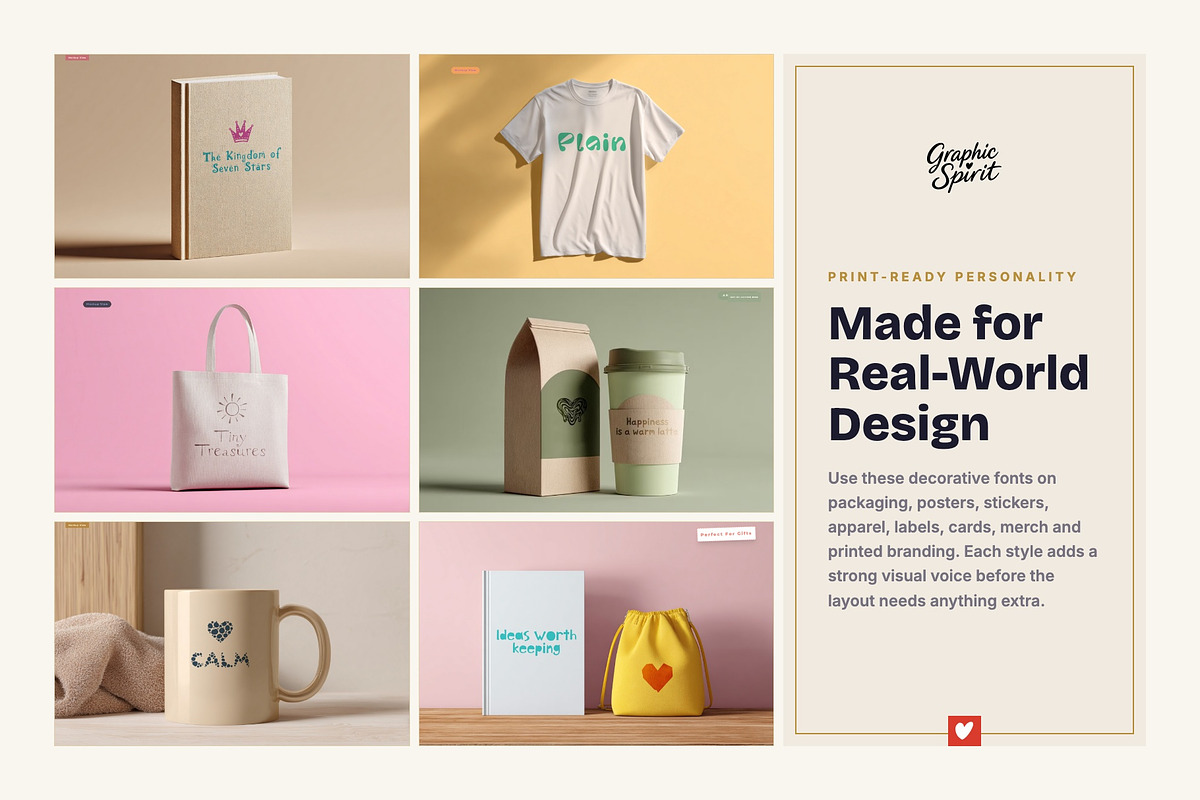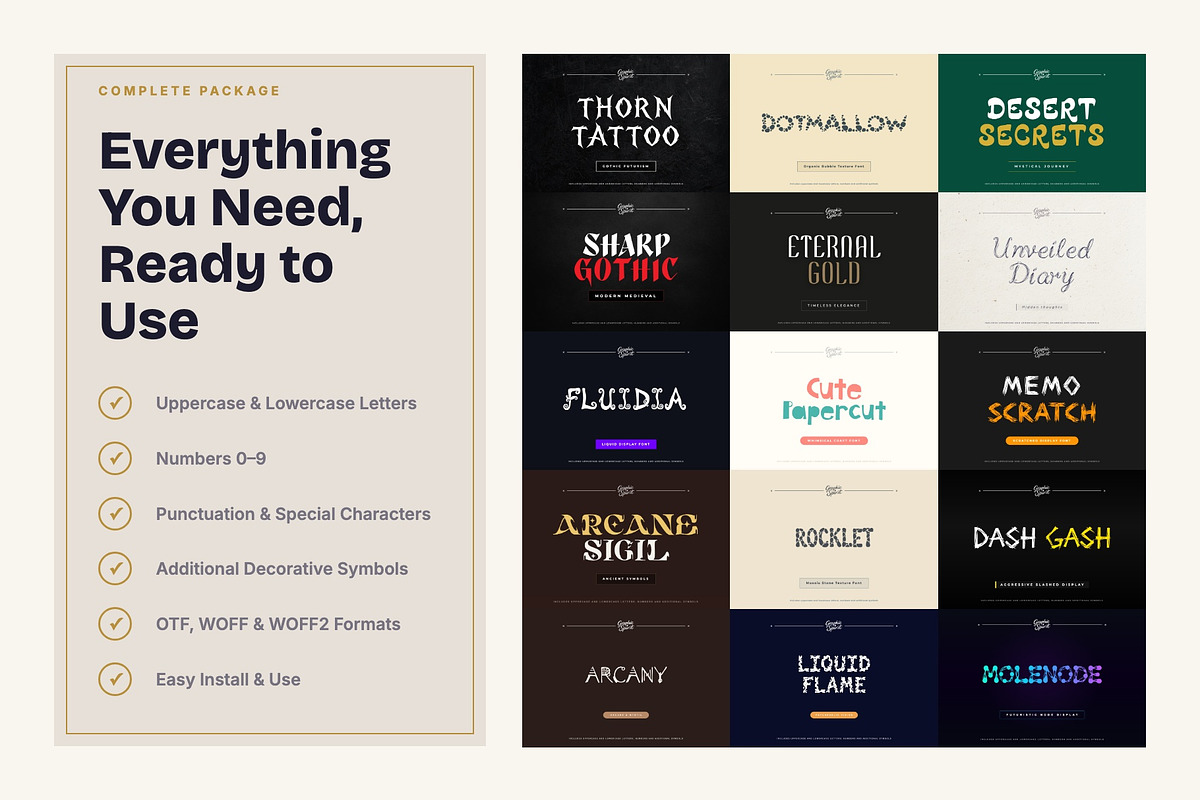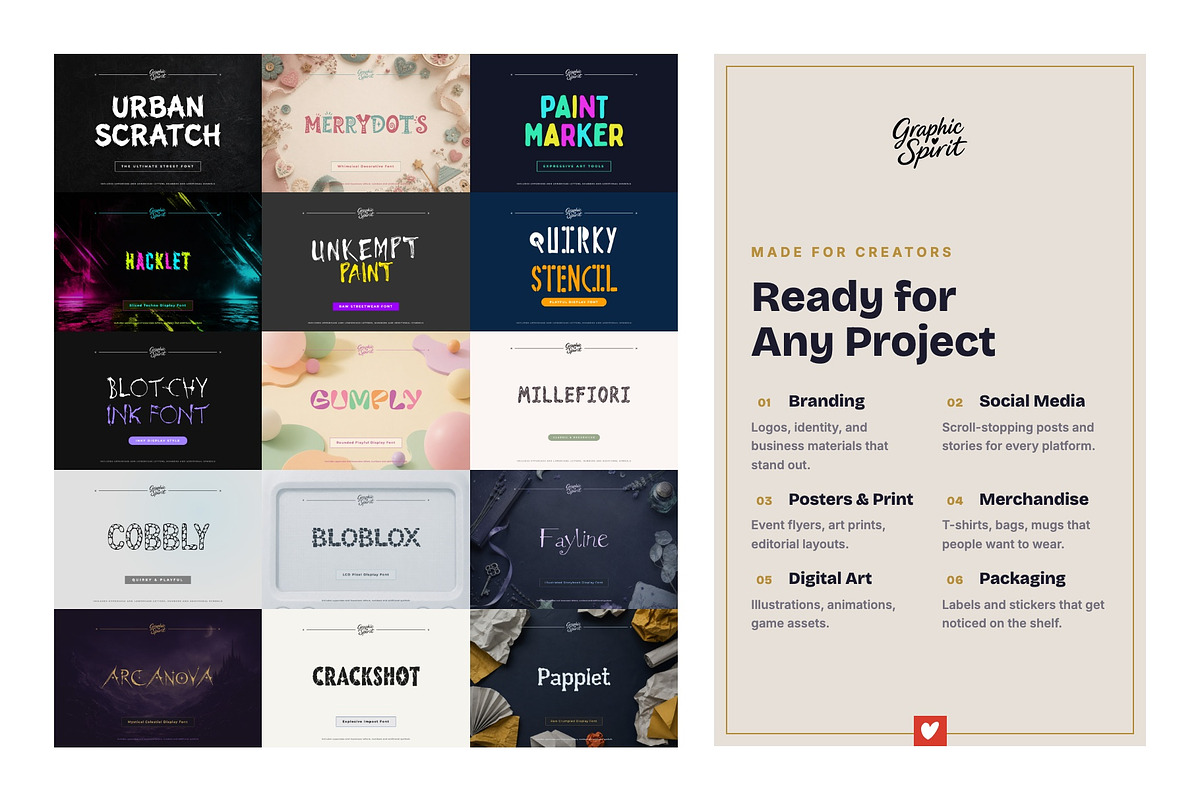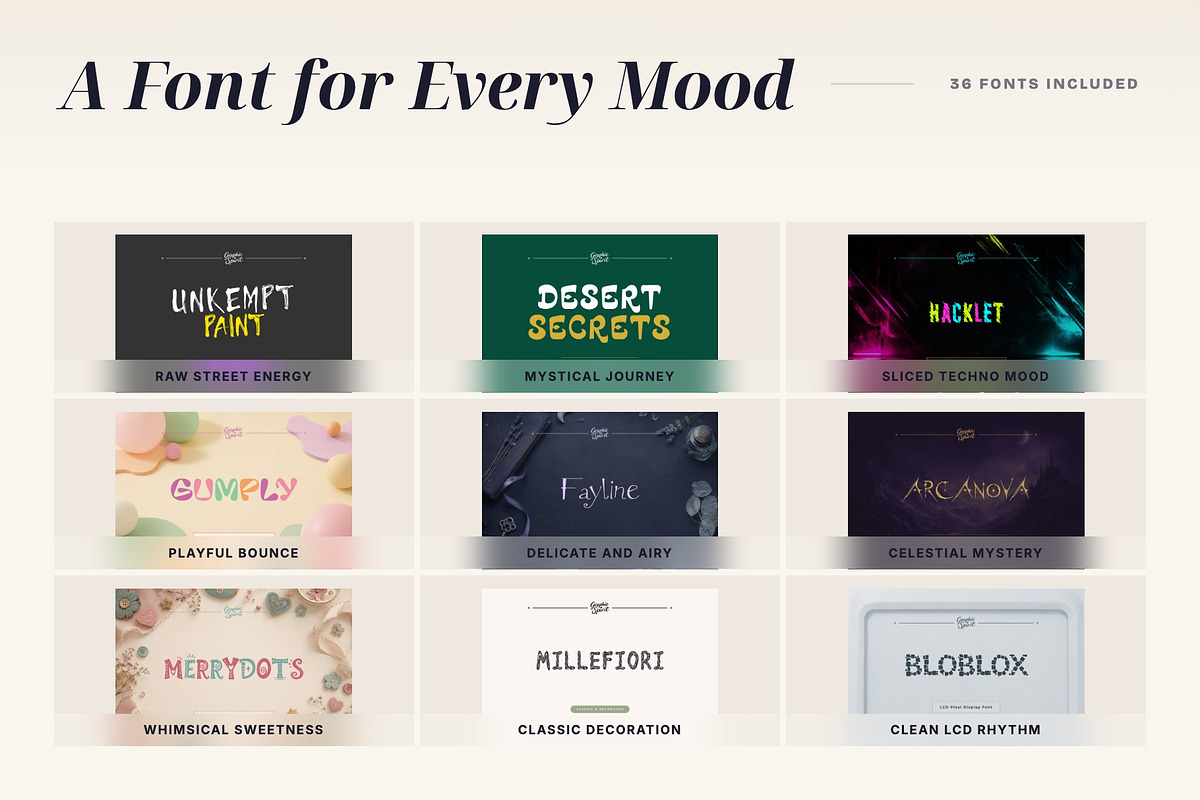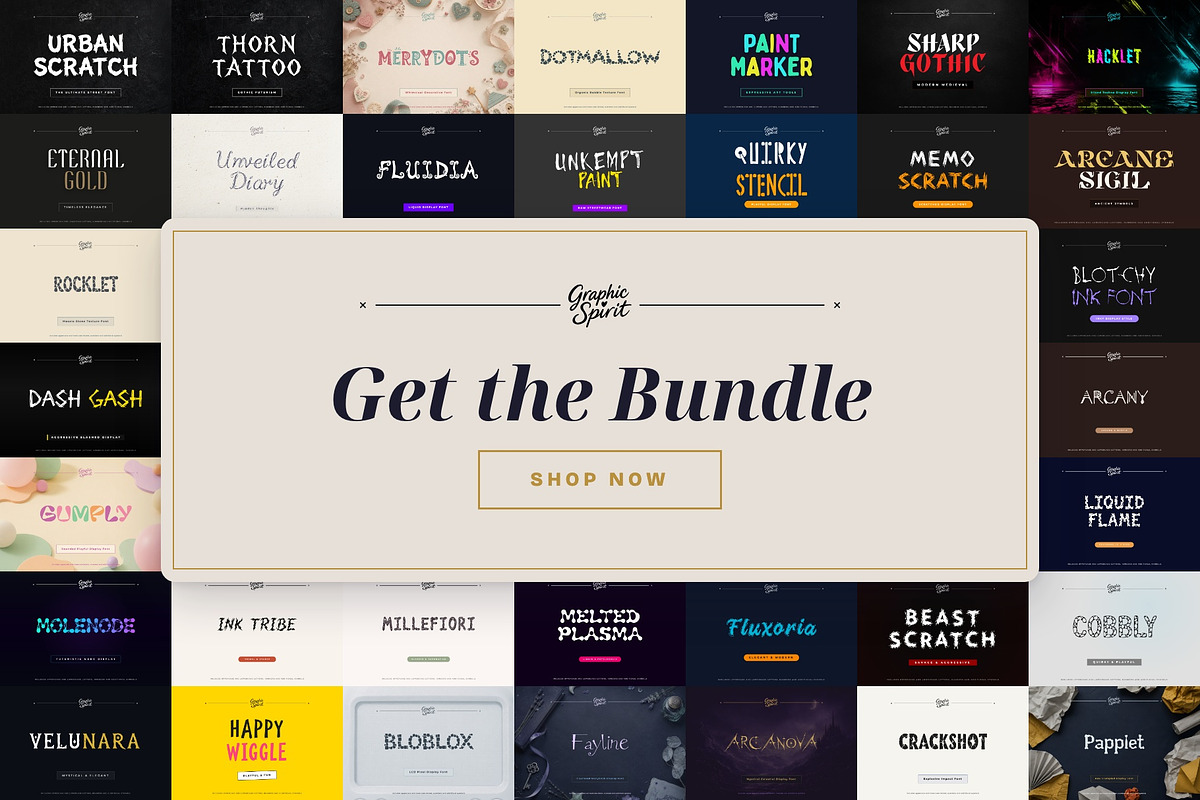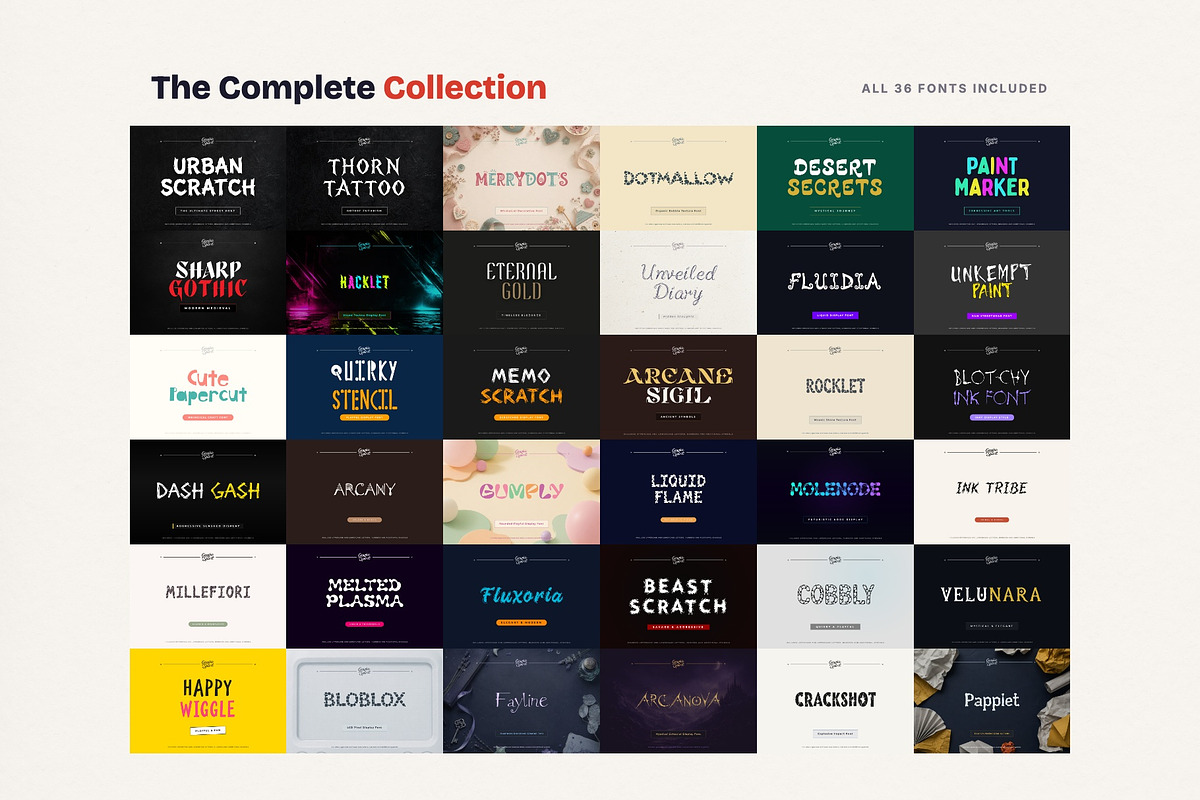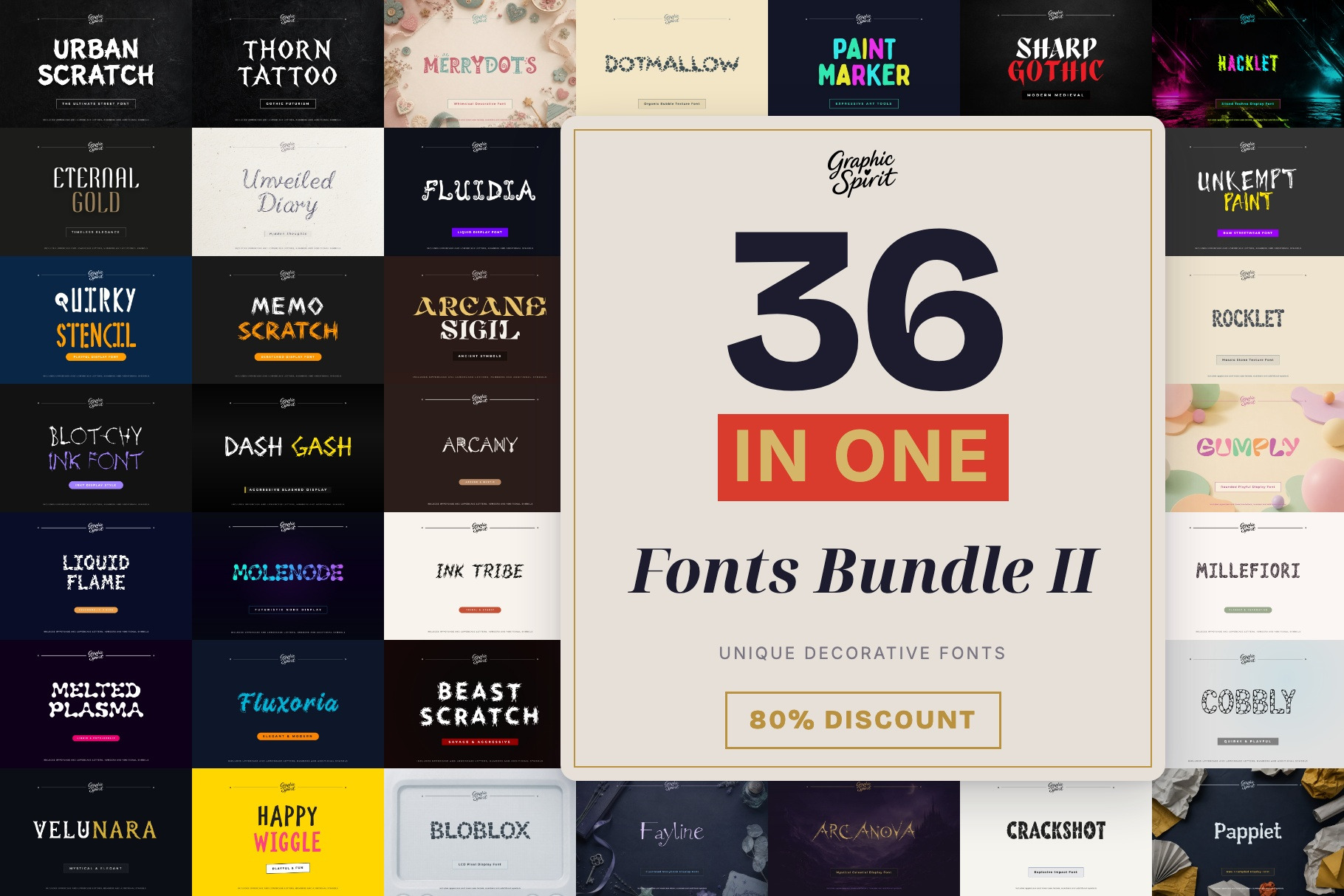
Decorative Fonts Bundle II 36 in 1
✨ Fonts Bundle II is a 36 in 1 decorative font collection built for expressive branding, posters, packaging, stickers, social media graphics, Cricut projects, merch, digital products, and bold creative typography. It gives you a wide mix of visual personalities in one polished download.
🎨 This collection includes playful kids fonts, rough street styles, gothic and medieval moods, pixel and LCD-inspired type, organic bubble lettering, marker looks, stencil forms, tattoo-inspired display fonts, craft paper styles, elegant decorative faces, mystical fantasy type, textured brush fonts, and experimental display alphabets.
💛 The value of the bundle is variety. You can move from cute nursery artwork to dark poster titles, from handmade packaging to arcade graphics, from whimsical invitations to bold streetwear layouts without searching for a new typeface each time. Each font is decorative and memorable, but the collection remains practical for real design work.
Included fonts:
Urban Scratch, Thorn Tattoo, MerryDots, Dotmallow, Desert Secrets, Paint Marker, Sharp Gothic, Hacklet, Eternal Gold, Unveiled Diary, Fluidia, Unkempt Paint, Cute Papercut, Quirky Stencil, Memo Scratch, Arcane Sigil, Rocklet, Blotchy, Dash Gash, Arcany, Gumply, Liquid Flame, Molenode, Ink Tribe, Millefiori, Melted Plasma, Fluxoria, Beast Scratch, Cobbly, Velunara, Happy Wiggle, Bloblox, Fayline, Arcanova, Crackshot, and Papplet.
Best for:
\\\\- ✨ Branding, logos, and visual identity concepts
\\\\- 🖼️ Posters, flyers, editorial titles, and album covers
\\\\- 🏷️ Stickers, labels, packaging, and printable products
\\\\- 👕 Apparel, merch, sublimation, and cutting machine projects
\\\\- 📱 Social media graphics, thumbnails, and digital promos
\\\\- 🎮 Gaming, kids, gothic, craft, retro, mystical, and experimental design